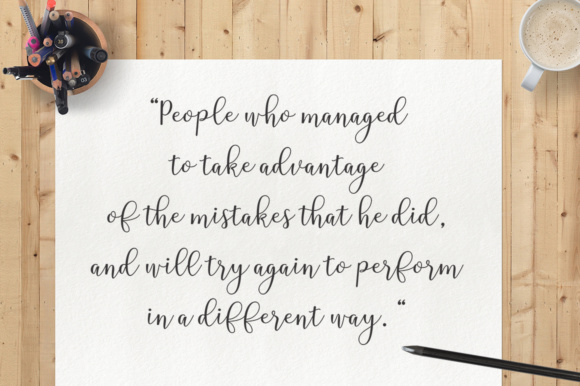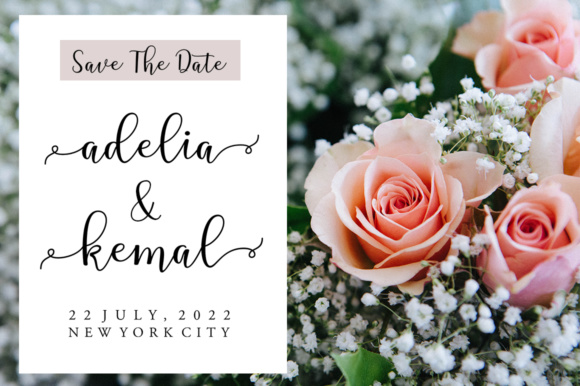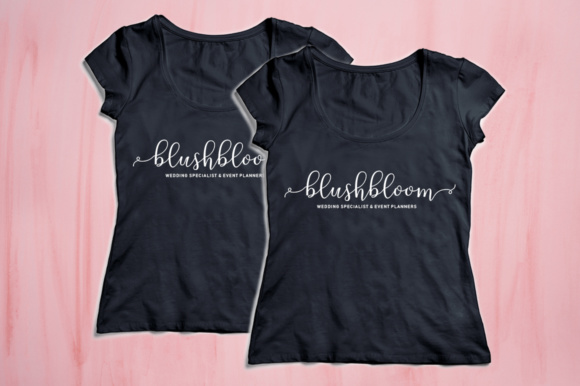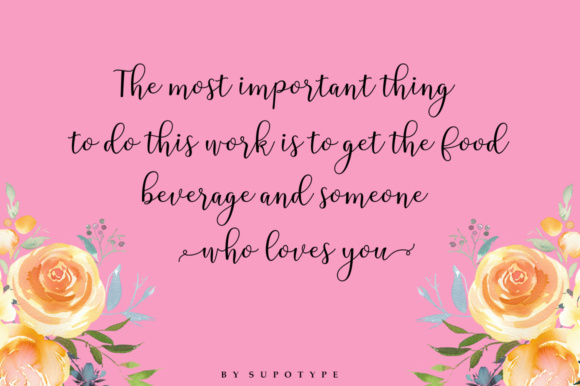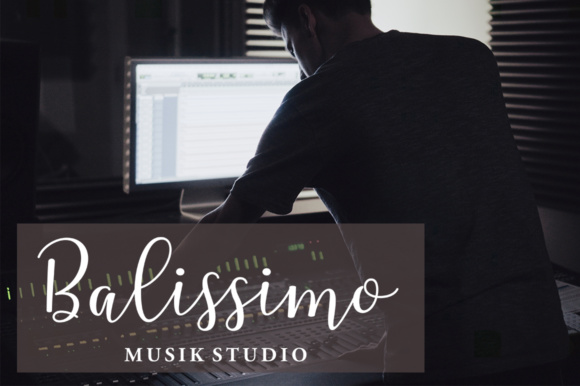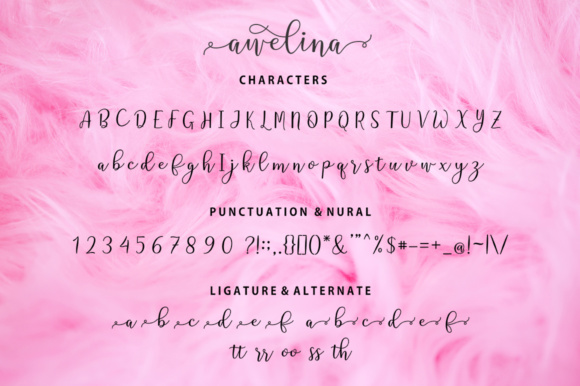
Awelina Script Font: Elevate Your Designs with a Sweet Calligraphy Style
Are you looking for a font that can add a touch of elegance and playfulness to your designs? Look no further than the Awelina Script Font. This beautiful calligraphy font is perfect for designers and crafters who want to create stunning branding, logos, greeting cards, quotes, and more.
What Makes Awelina Script Font Special?
The Awelina Script Font is a dynamic and casual font with a dancing baseline, giving it a unique and eye-catching feel. Its sweet calligraphy style makes it perfect for a wide range of design projects, from formal events to casual social media posts. Whether you’re a professional designer or a DIY crafter, this font is easy to use and can help you create stunning designs in no time.
Key Features of Awelina Script Font
- Dynamic and Casual: The Awelina Script Font has a playful and energetic feel, making it perfect for designs that require a touch of personality.
- Dancing Baseline: The font’s unique baseline gives it a lively and dynamic feel, setting it apart from other calligraphy fonts.
- Easy to Use: The Awelina Script Font is user-friendly and can be easily integrated into your design projects, even if you’re not a professional designer.
- Versatile: This font is perfect for a wide range of design projects, including branding, logos, greeting cards, quotes, and more.
The Awelina Script Font is a must-have for designers and crafters who want to add a touch of elegance and sophistication to their designs. Whether you’re creating:
- Branding Materials: Use the Awelina Script Font to create stunning logos, business cards, and letterheads that reflect your brand’s personality.
- Greeting Cards: Add a personal touch to your greeting cards with this beautiful calligraphy font.
- Quotes and Posters: Create inspiring quotes and posters that stand out with the Awelina Script Font.
- Social Media Graphics: Use this font to create engaging social media graphics that capture your audience’s attention.
Tips for Using Awelina Script Font
To get the most out of the Awelina Script Font, here are some tips to keep in mind:
- Pair it with Other Fonts: Combine the Awelina Script Font with other fonts to create a unique and visually appealing design.
- Keep it Simple: Don’t overcomplicate your design – the Awelina Script Font is beautiful on its own, so let it shine!
The Awelina Script Font is a beautiful and versatile calligraphy font that’s perfect for designers and crafters who want to add a touch of elegance and playfulness to their designs. With its dynamic and casual feel, dancing baseline, and ease of use, this font is sure to become a favorite in your design toolkit. So why wait? Get creative with the Awelina Script Font today and elevate your designs to the next level!